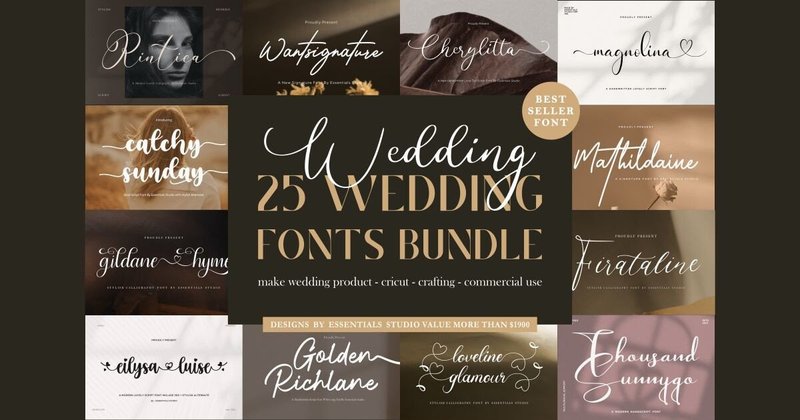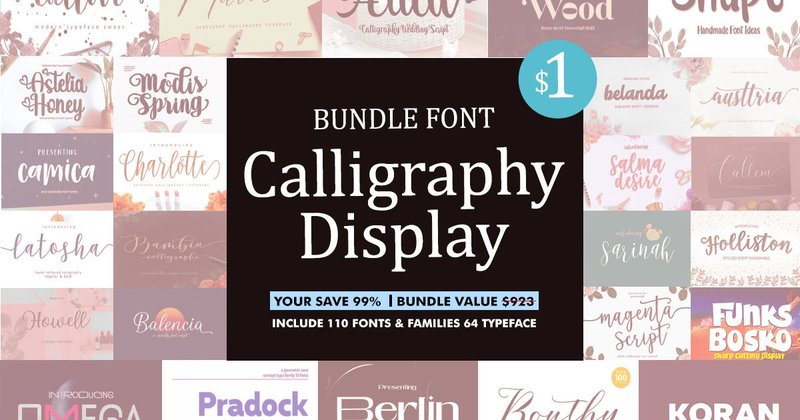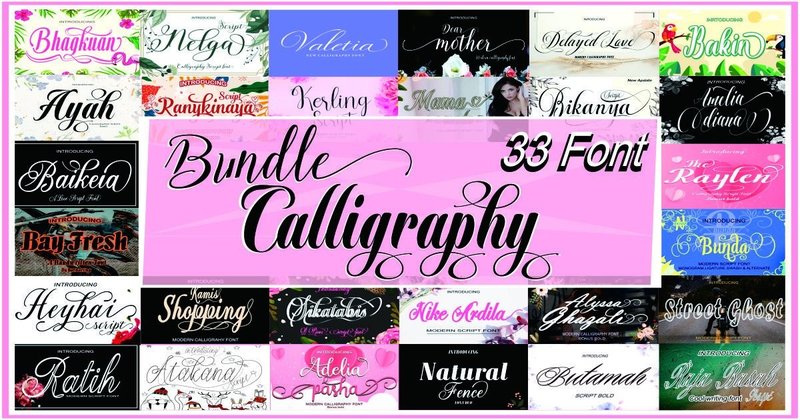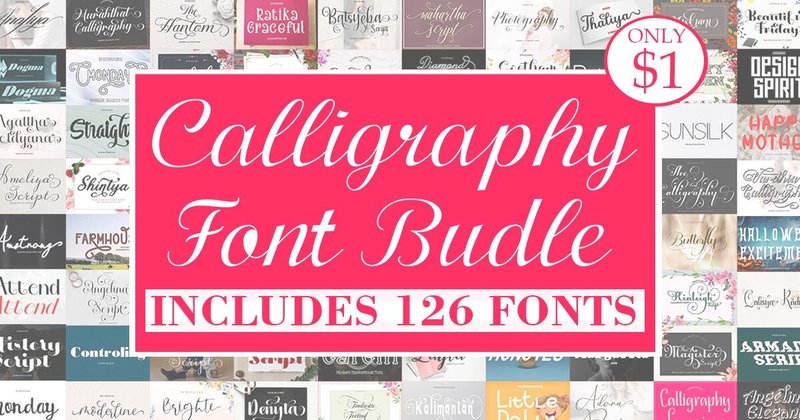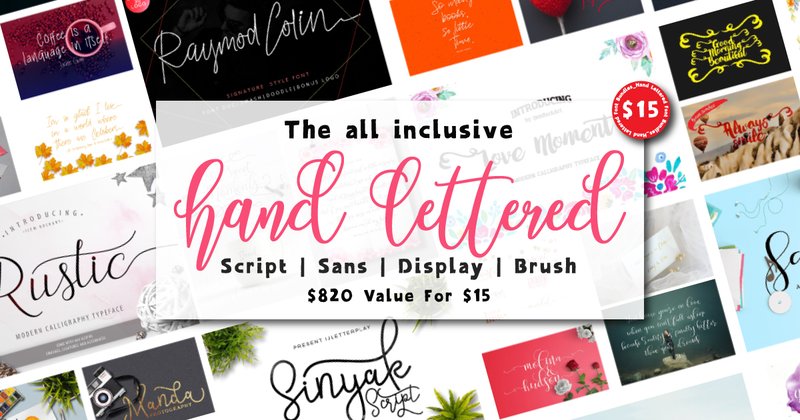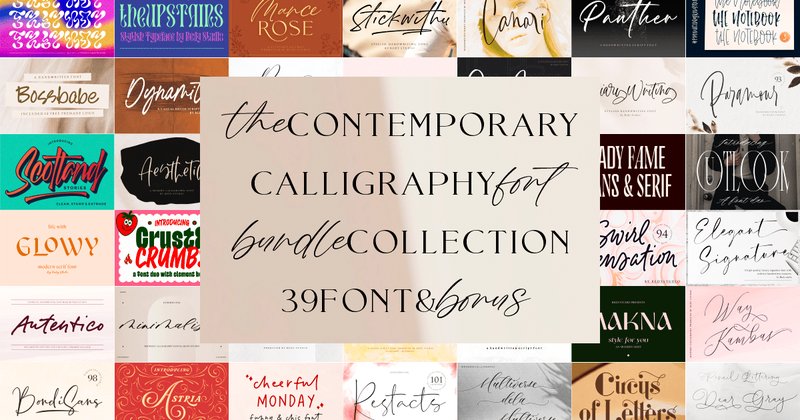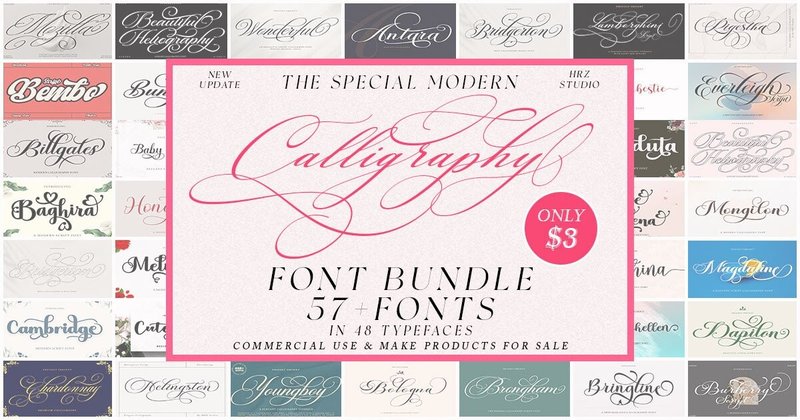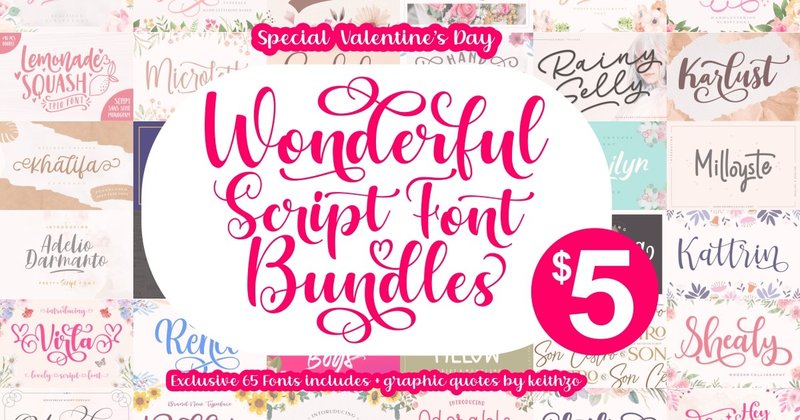
The 9 Best Calligraphy Font Bundles for Stunning Designs in 2026
In 2026, the trend towards authentic, handcrafted design continues to dominate, and nothing says personal touch quite like elegant calligraphy. For designers and crafters creating everything from wedding stationery to bespoke branding, the right script font is essential. It adds a layer of sophistication and warmth that minimalist sans-serifs can’t match. To help you find the perfect fit, we’ve curated this list of the 9 most popular and breathtaking calligraphy font bundles on the market right now. These collections are packed with value, offering versatile styles to elevate your creative projects instantly.
1. Calligraphy Font Bundle (by Shape Studio)
Calligraphy Font Bundle (by Shape Studio)
Calligraphy Font Bundle (by Shape Studio) is like falling in love at first sight; it’s an immediate, head-over-heels affair for any designer with a passion for typography. This collection isn’t just a bundle; it’s a treasure chest of romantic expression, housing an astounding 126 unique fonts that feel both deeply personal and professionally polished. Each typeface flows with an effortless grace, offering everything from delicate, whispering scripts perfect for intimate invitations to bold, expressive strokes ideal for statement branding. For a price that feels like a gift, Shape Studio provides a complete library of handwritten elegance, ensuring your creative toolkit is overflowing with fresh, timeless, and sophisticated options for any project that calls for a human touch.
• A massive library of 126 distinct calligraphy and script fonts.
• Styles range from delicate and romantic to bold and modern brush scripts.
• Includes stylistic alternates and ligatures to create an authentic, handwritten feel.
• Designing wedding invitations, save-the-dates, and elegant event stationery.
• Creating signature logos and sophisticated branding for photographers, bloggers, and boutiques.
• Crafting beautiful, shareable quote graphics for social media.
• Adding a touch of class to product packaging, book covers, and editorial headlines.
2. The Contemporary Calligraphy Font Bundle (by RedyStudio)
The Contemporary Calligraphy Font Bundle (by RedyStudio)
The Contemporary Calligraphy Font Bundle (by RedyStudio) is a sprawling and impeccably curated collection that strikes the perfect balance between timeless elegance and fresh, modern sensibilities. This bundle moves beyond traditional calligraphy, offering a diverse set of 39 fonts that feel both personal and highly professional. Each typeface is crafted with fluid, expressive strokes that bring a touch of sophisticated, handwritten artistry to any project, making high-end design accessible without sacrificing an ounce of quality.
• A massive library of 39 distinct calligraphy fonts offering incredible variety.
• Clean, contemporary letterforms infused with the organic flow of authentic handwriting.
• Includes a mix of scripts, from delicate and airy to bold and expressive.
• Elegant wedding invitations, save-the-dates, and high-end event stationery.
• Sophisticated branding for photographers, lifestyle bloggers, and boutique businesses.
• Creating impactful social media quotes, post overlays, and digital watermarks.
• Product packaging and labels that require an artisanal, luxurious feel.
3. Handwritten Font Bundle (by Katie Holland)
Handwritten Font Bundle (by Katie Holland)
Handwritten Font Bundle (by Katie Holland) immediately feels like unlocking a designer’s personal sketchbook—a treasure trove of authentic, human-centric typography. This collection doesn’t just offer fonts; it offers personality. From the effortless grace of a signature script to the bold energy of a dry brush font, each typeface provides a distinct voice, allowing you to infuse your work with a sense of intimacy and bespoke charm that digital perfection often lacks. It’s an essential toolkit for any creative looking to bridge the gap between the screen and the soul, making every design feel personal and thoughtfully crafted.
• A massive and versatile collection of 66 unique handwritten fonts.
• An expansive range of styles, including calligraphy, signature, brush lettering, and vintage display.
• Excellent international reach with multilingual support and 10 fonts featuring full Cyrillic character sets.
• Creating authentic, approachable branding for boutiques, cafes, and creative entrepreneurs.
• Designing bespoke wedding stationery, event invitations, and romantic announcements.
• Adding a warm, personal touch to social media graphics, quote images, and packaging.
• Developing unique logos and crafting projects that require a handmade, artistic feel.
4. Best Wedding Calligraphy Font Bundle (by Essentials Studio)
Best Wedding Calligraphy Font Bundle (by Essentials Studio)
Best Wedding Calligraphy Font Bundle (by Essentials Studio) Romantic and utterly timeless, this collection from Essentials Studio is a love letter to classic design. It brings together 25 meticulously crafted calligraphy fonts that feel both personal and luxurious, perfect for projects that demand a touch of grace. From delicate, flowing scripts to more structured, modern letterforms, this bundle provides the versatility needed to create a complete, cohesive aesthetic for any sophisticated event. At an unbelievable value, it’s an essential toolkit for designers looking to infuse their work with effortless elegance.
These nine calligraphy bundles represent the best in modern script typography, offering incredible versatility and value for any creative. Whether you’re designing for a client or a personal passion project, investing in one of these collections will provide a timeless toolkit for adding that perfect touch of handwritten elegance.